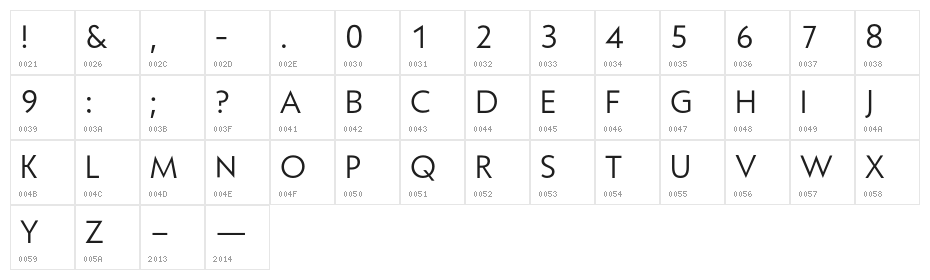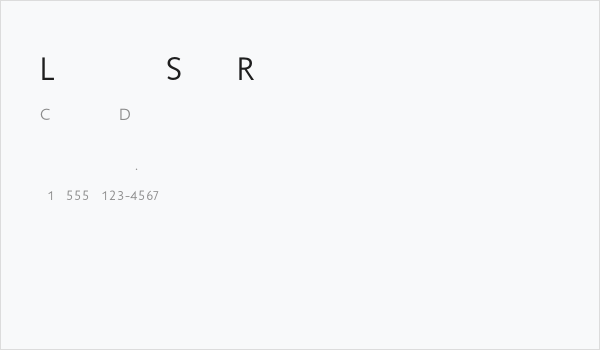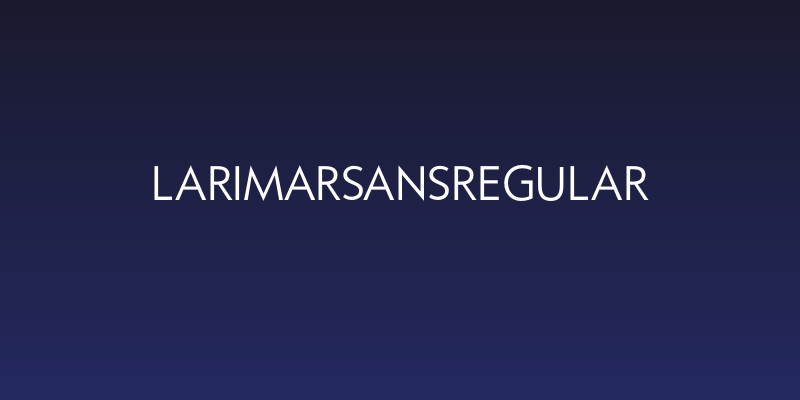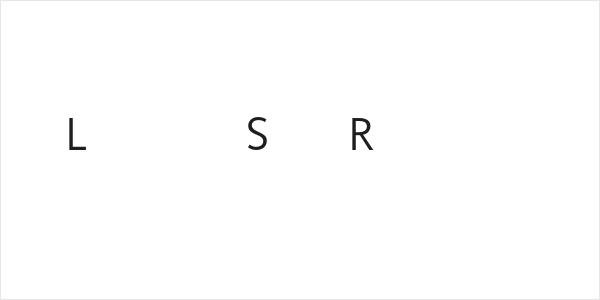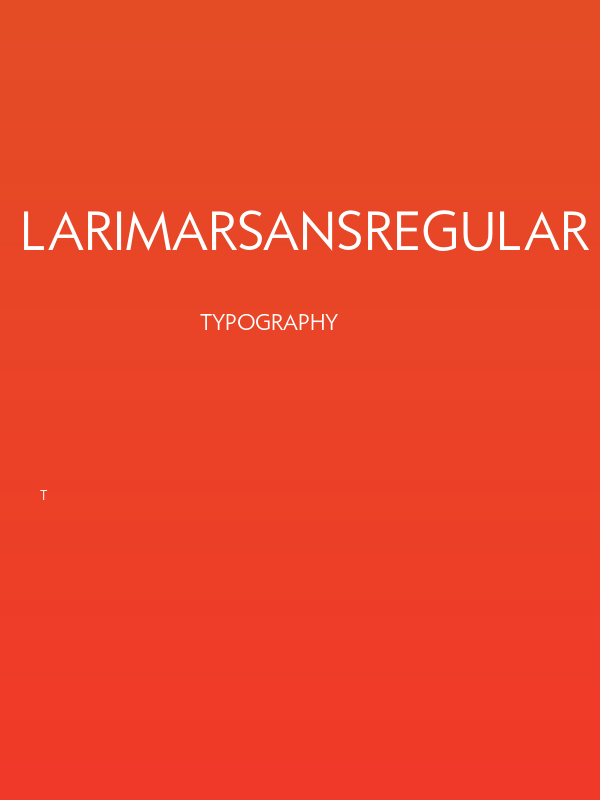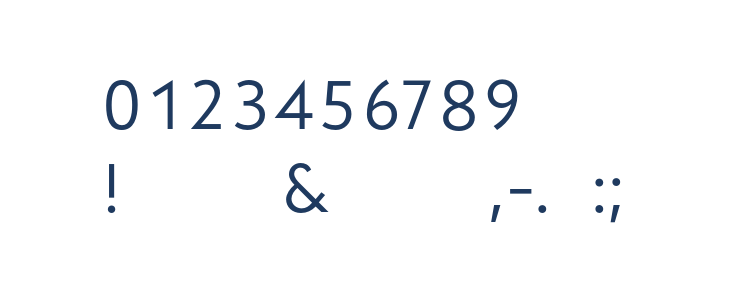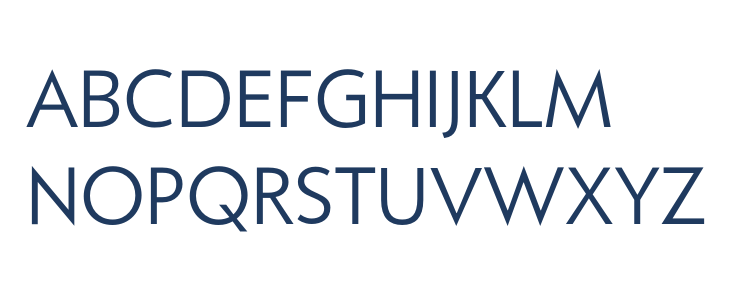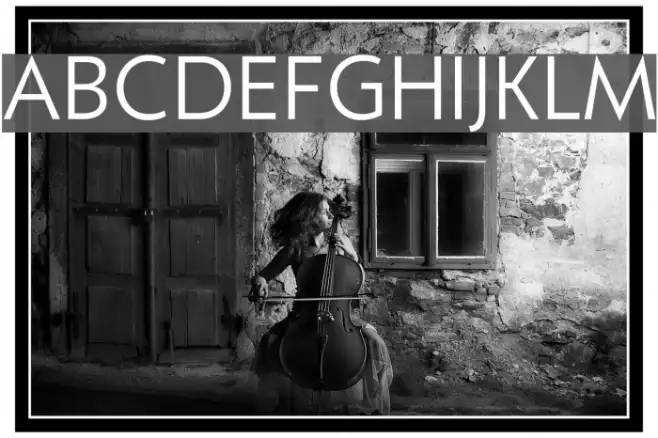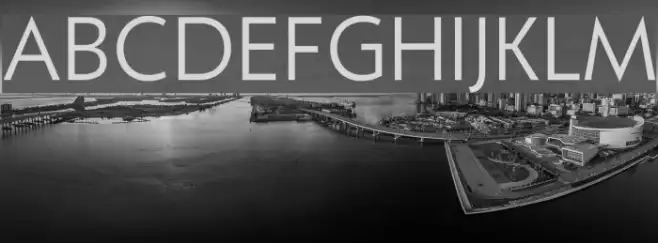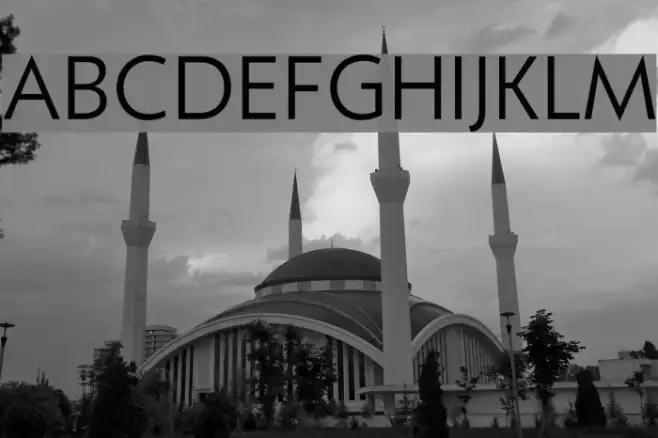
LarimarSansRegular Font
LarimarSansRegular Description
This font exhibits a clean and modern sans-serif style, characterized by its simplicity and clarity. The letters are evenly spaced with a uniform stroke width, providing a balanced and harmonious appearance. The uppercase letters are bold and prominent, while the lowercase letters maintain a consistent height, enhancing readability. The numerals are straightforward and align well with the overall geometric design. Special characters are distinct and integrate seamlessly with the rest of the typeface, making it versatile for various applications. Its minimalist aesthetic makes it suitable for contemporary design projects.